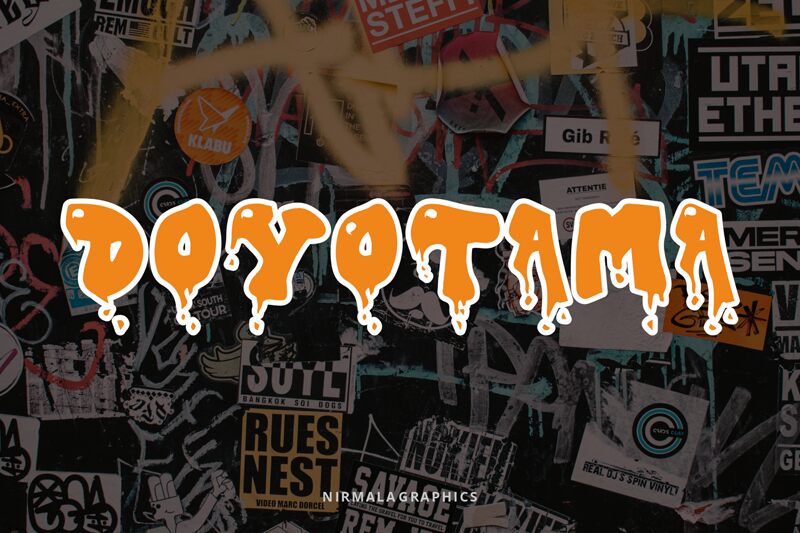
Doyotama font, a creation of Nirmala Graphics, is a free graffiti font with a unique style. This typeface takes inspiration from modern street art, incorporating dynamic flow and unconventional forms. Its organic shapes and dripping effect give it an energetic, whimsical vibe, perfect for projects that aim to convey a vivid and informal tone.
Ideal for posters, album covers, digital artwork, clothing designs, stickers, and book covers, Doyotama font can also bring a modern, informal touch to advertising campaigns, social media graphics, websites, banners, and blog headers. Its influence from graffiti art is perfect for when you want to stand out.